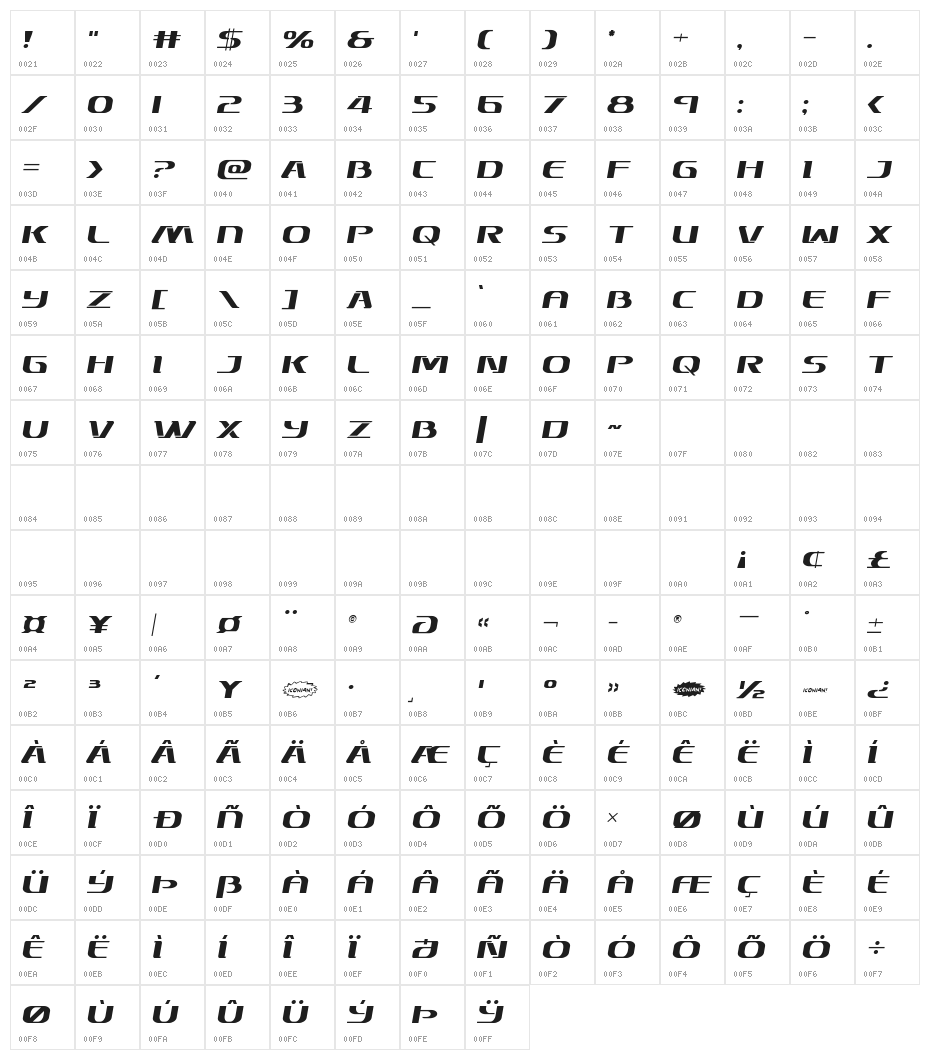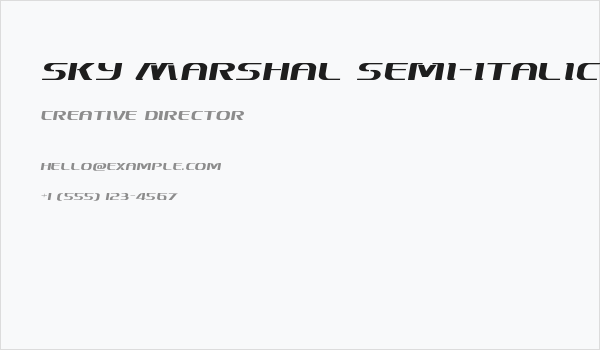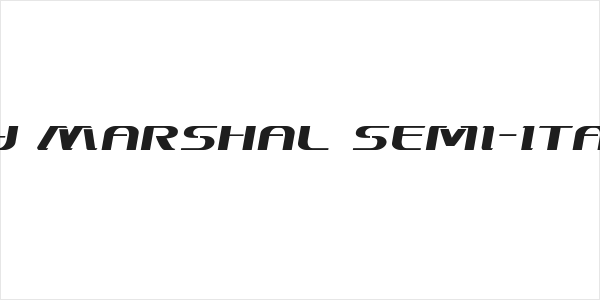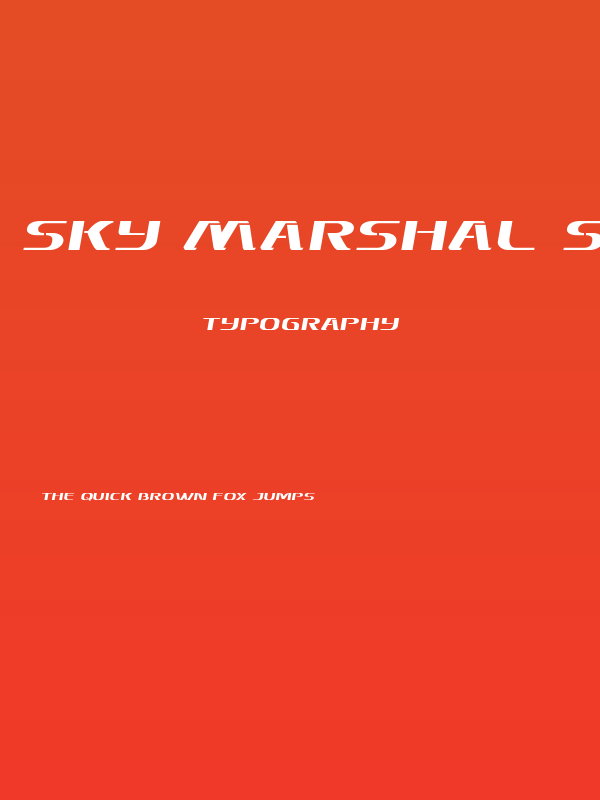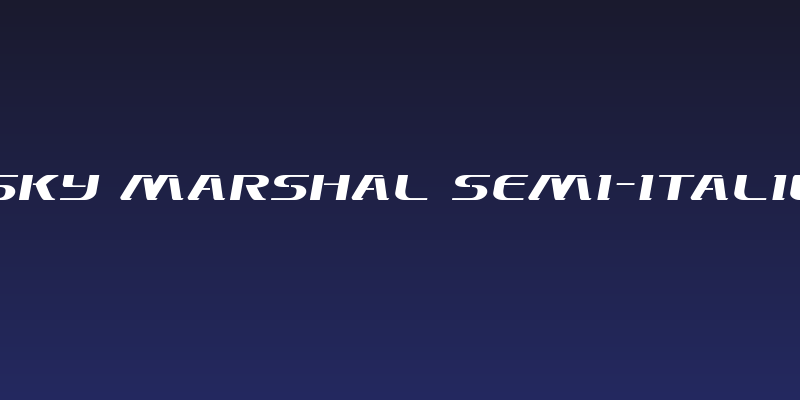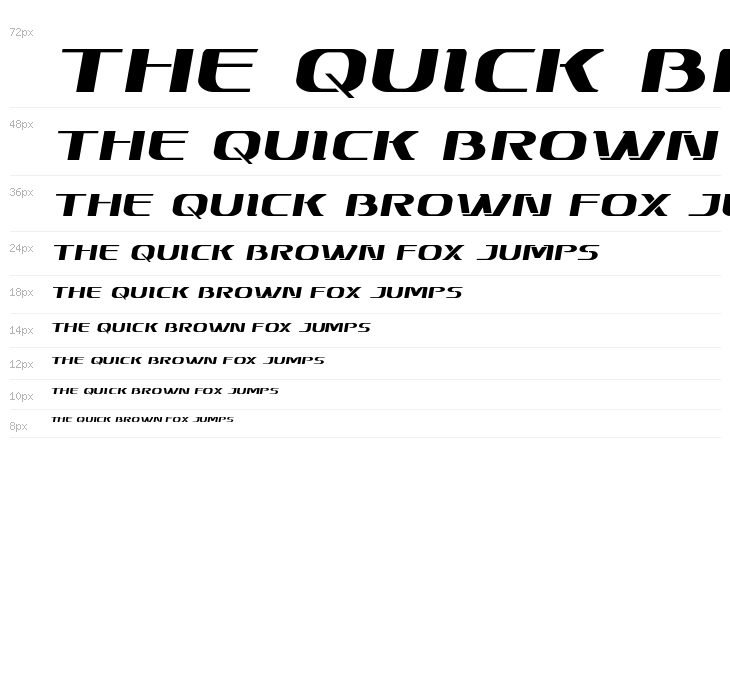
Sky Marshal Semi-Italic Font
Sky Marshal Semi-Italic Description
This font features a sleek, futuristic design with a semi-italic slant, giving it a dynamic and forward-moving appearance. The characters are bold and angular, with sharp edges and a consistent stroke width that conveys a sense of strength and modernity. The uppercase and lowercase letters maintain a uniform style, enhancing readability while adding a unique flair. The numerals and special characters are designed to match the overall aesthetic, making them suitable for a variety of applications. The font's distinct style makes it ideal for projects that require a modern and innovative look.
Proposed ProjectsIdeal for technology branding, sci-fi themed projects, video game titles, and modern advertising campaigns.